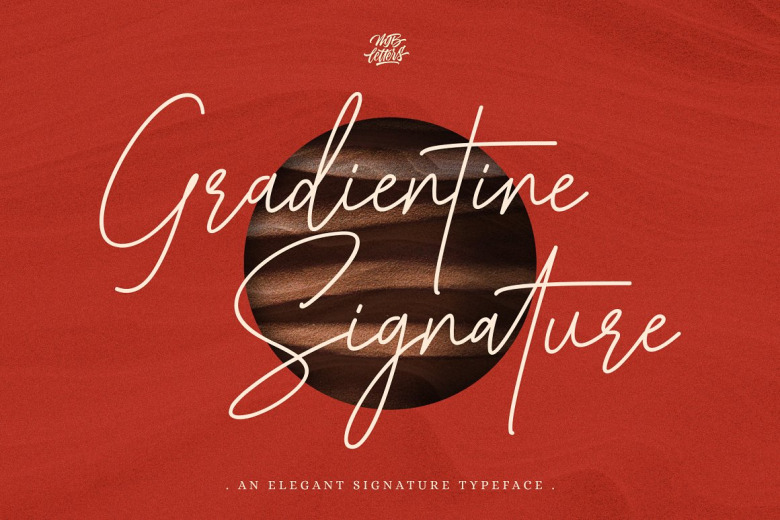
Gradientine Signature Font
Gradientine Signature is a perfect cursive font that has a modern and authentic look, this font has a strong and unique character in both lowercase and uppercase, this font is perfect for branding, canva, silhouette, template, procreate, watermark, signature, logo design, packaging design, business card, fashion design, t-shirt design, wedding design and more.
Gradientine Signature Script Font